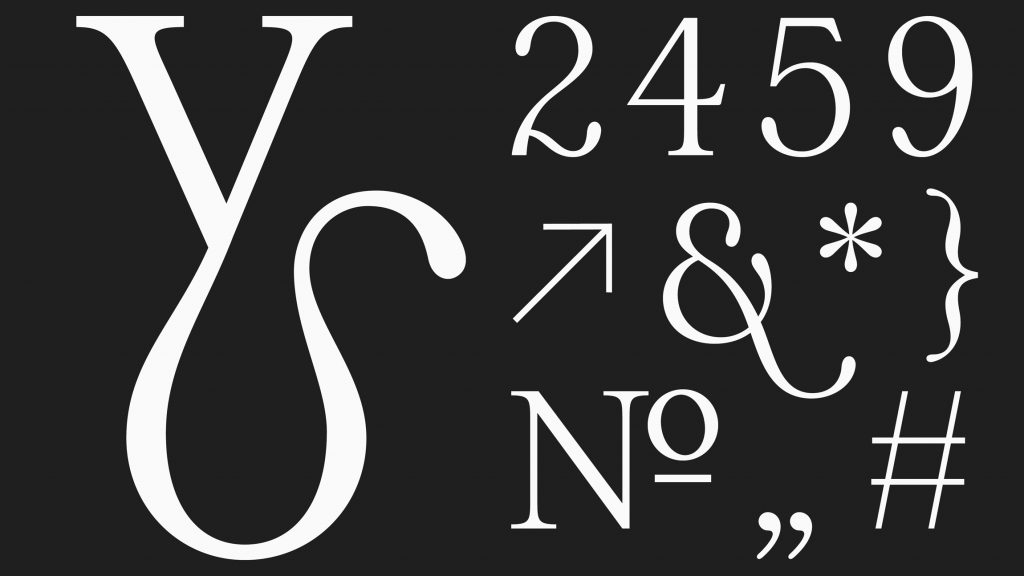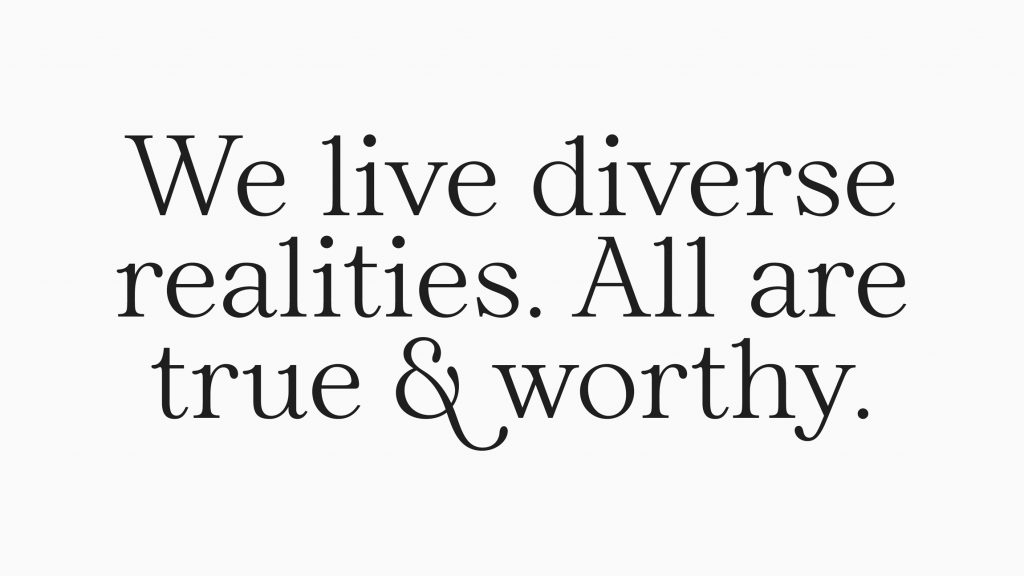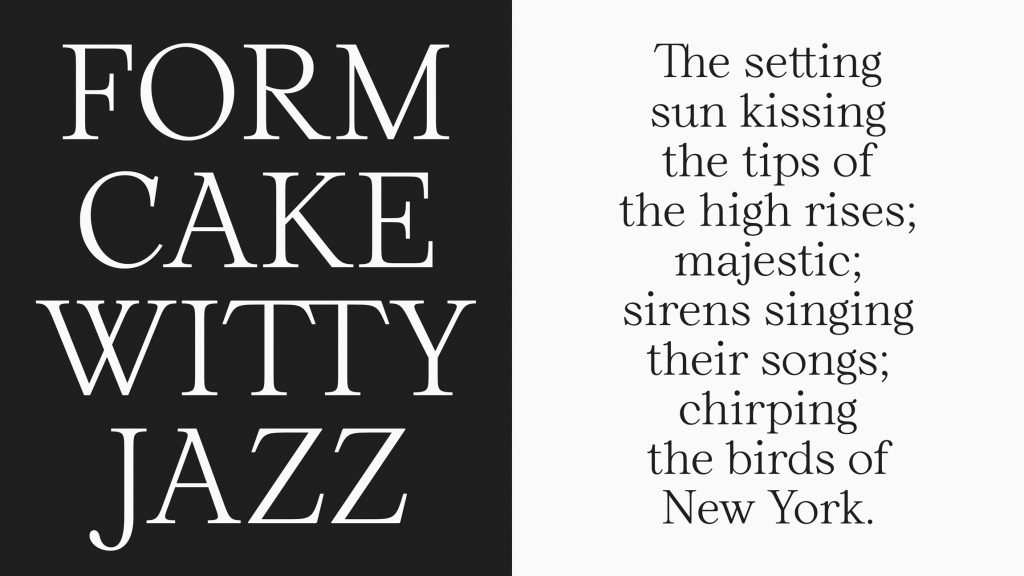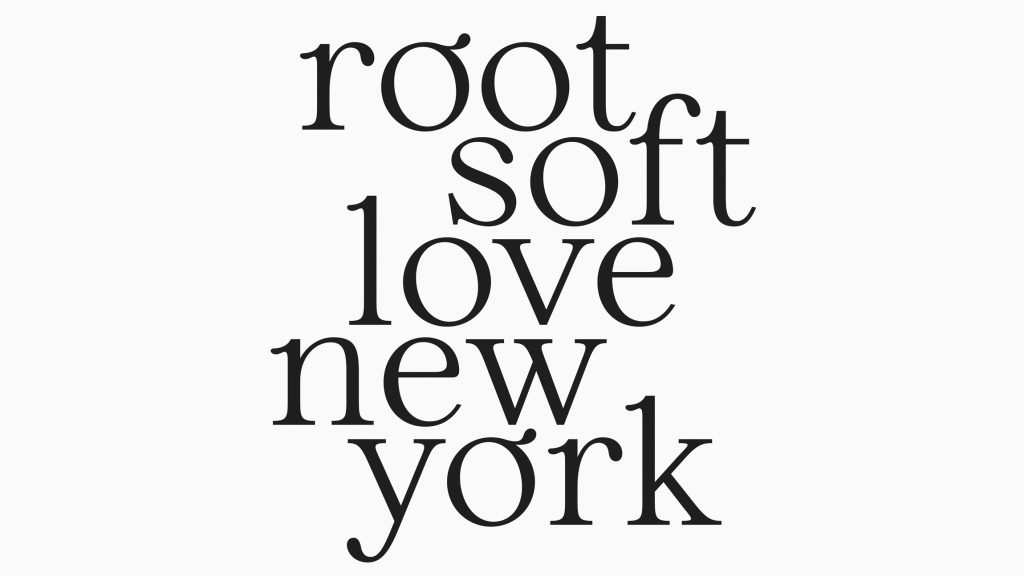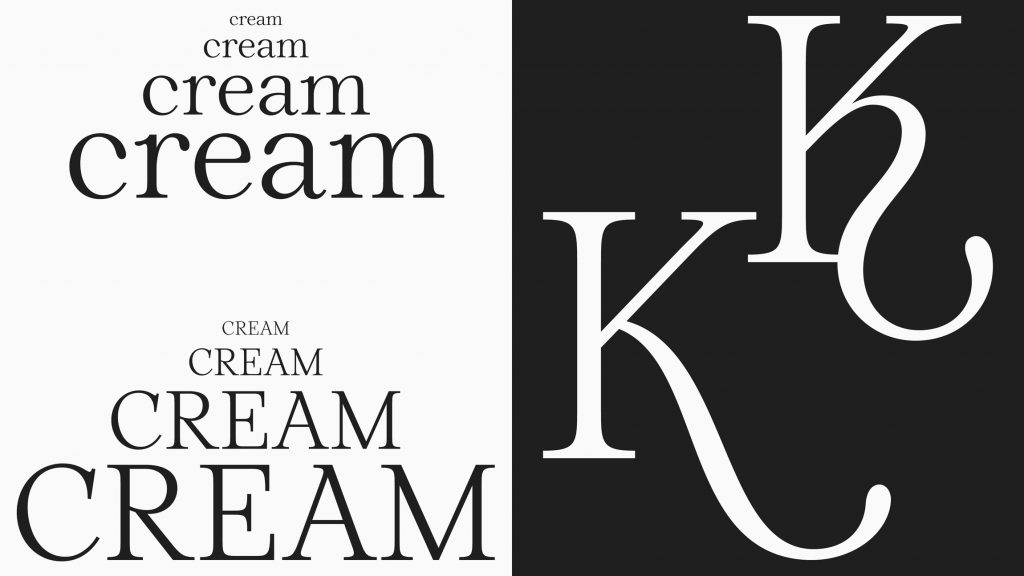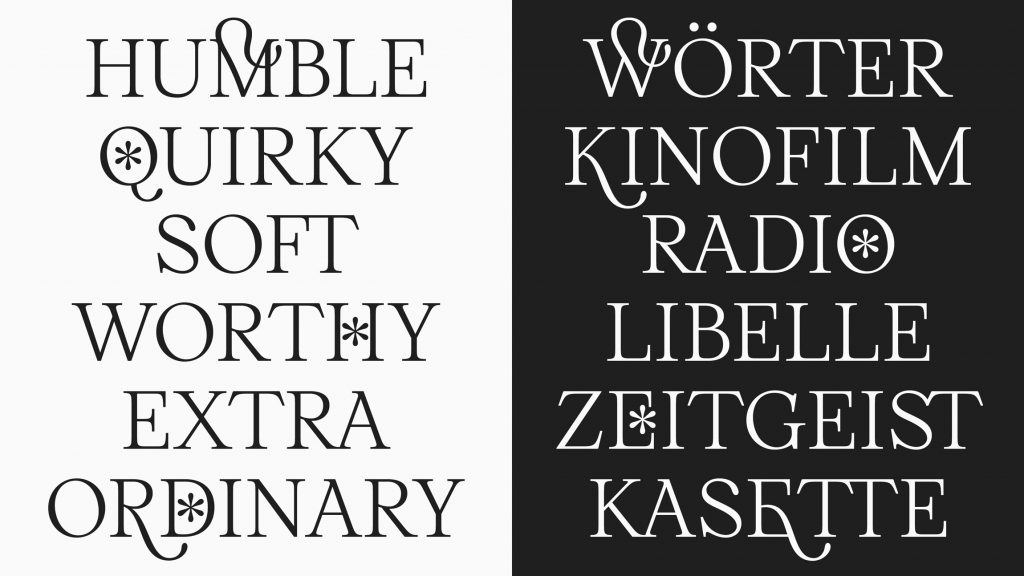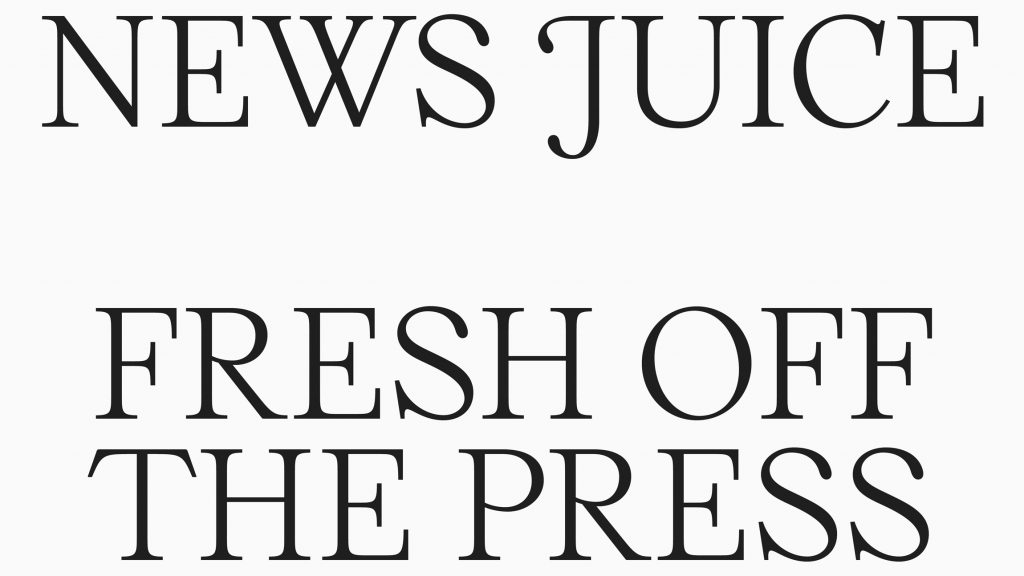
Name: Super Tramp
Designer: Vivian Dehning
Release Date: December 2021
Back Story: Dehning sees type design as a way to express human diversity and personality. For Super Tramp, she envisioned a typeface with a variety of forms based on a classical framework. The designer says, “When I look at a letter, I picture actual characteristics I see in humans. Every character has a right to exist and be given space as well as acceptance. And because letters build words, words build language, and language builds realities, values like respect and empathy should be carried in communication. Not just through words, but also through appearance and actions.”
Why’s it called Super Tramp? It has nothing to do with the 1970’s band that my college roommate played on repeat till I legitimately would go out and walk around at night in the snow, in case you were wondering. Dehning says, “I deliberately put together a laudatory adjective and a noun that carries certain biases. ‘Tramp’ is often used to mean ‘bitch’ or ‘slut,’ and I wanted to re-appropriate the word to empower women. ‘Super’ adds celebration and the extra meaning of something or someone who doesn’t stay in one place for long and has to adapt to new situations every now and then.”
What are its distinguishing characteristics? Dehning wanted Super Tramp to demand and claim space, so she gave it wide, expansive letterforms, drawing dozens of iterations by hand on paper before refining them digitally.
Super Tramp’s round/smooth vs. sharp/angular shapes complement and support each other, resulting in a set of confident characters that come together as a joyful group. It has plenty of oddly delightful details, not only in its multitude of swashes but in moments like the capital S’s single serif terminal as well as the gently-curved blobby flourishes and terminals on many lowercase letters that lend a jaunty lilt to passages of text. Current language support includes basic Latin; Western, Central, and Southeastern European; South American; Oceanian; Sami, and Esperanto.
What should I use it for? The designer hopes to see Super Tramp used for projects, especially editorial publishing, that can have a positive impact on the social and environmental challenges we face in the years to come.
What other typefaces do you like to pair it with? Try it with a modern grotesque that has a similar x-height and width such as Nouvelle Grotesk, or a bold and compact all-caps editorial typeface, such as Outward.